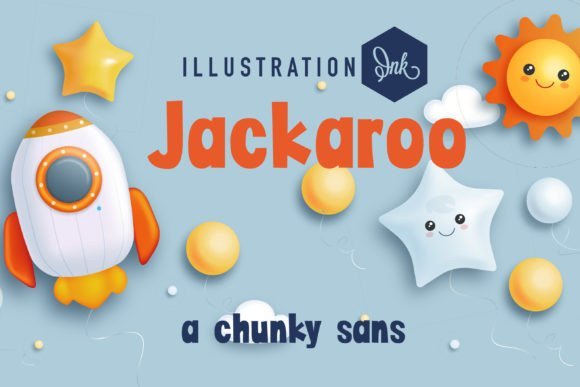
The Perfect Match for Your Creative Vision
Have you ever stared at a blank canvas, desperately searching for the perfect font to bring your design to life? You know that feeling when every letter seems to scream ‘pick me’ but none quite fit the vibe you’re going for? That’s when you start to wonder – what’s the secret to unlocking the perfect font?
Enter the Jackaroo Font, a modern sans-serif masterpiece that’s about to become your new best friend. With its crisp and clean lines, this font is designed to make your designs stand out from the crowd. Whether you’re working on a logo, title, or any other design element, Jackaroo Font’s versatility and simplicity make it an ideal choice for creatives who crave something unique and eye-catching.
As a designer, you understand the importance of choosing the right font to elevate your project. With the Jackaroo Font, you can rest assured that your designs will exude sophistication and style, making it a valuable addition to your design arsenal.
Jackaroo Font Key Features
• Unique Characteristics: Jackaroo Font is a modern, sans-serif typeface designed for digital use. It features clean lines, geometric shapes, and a friendly feel, making it suitable for a wide range of applications, from body text to display headlines.
• X-Height and Line Spacing: Optimized for clear readability, with a moderate x-height and carefully balanced line spacing to ensure easy reading and comprehension.
• Language Support: Supports a wide range of languages, including Latin, Cyrillic, Greek, and many others, with comprehensive support for diacritical marks and special characters.
Designer Review: Jackaroo Font
At first glance, Jackaroo Font seems to be a quirky, adventurous font that could work well in projects where you want to add a touch of playfulness and energy. ✨ The font’s irregular shapes and varied letterforms make it stand out from more traditional sans-serif fonts.
The font’s versatility is one of its strongest points. ✨ It can be used for a variety of projects, from children’s books and educational materials to advertisements and marketing campaigns. The font’s friendly, approachable feel makes it easy to read and understand.
However, there are some limitations to consider. ⚠️ The font’s irregular shapes can sometimes make it difficult to read in certain contexts, such as in long blocks of text. Additionally, the font may not be suitable for projects that require a more formal or professional tone.
• Difficulty reading in long blocks of text
• May not be suitable for formal or professional projects
In conclusion, Jackaroo Font is a fun and adventurous font that can add a unique touch to a variety of projects. While it has some limitations, its versatility and playfulness make it a great choice for designers looking to add some personality to their work.
Tips for Getting the Most Out of Jackaroo Font
For the best results, pair Jackaroo Font with complementary fonts to create a balanced design. Experiment with different font sizes and styles to add visual interest to your design. Use Jackaroo Font for headings or titles to create a clear hierarchy of information.
Jackaroo Font is ideal for creative projects, such as brochures, flyers, and posters. It’s also suitable for presentations, reports, and documents that require a touch of sophistication and elegance. Use Jackaroo Font to add a unique and memorable touch to your designs.